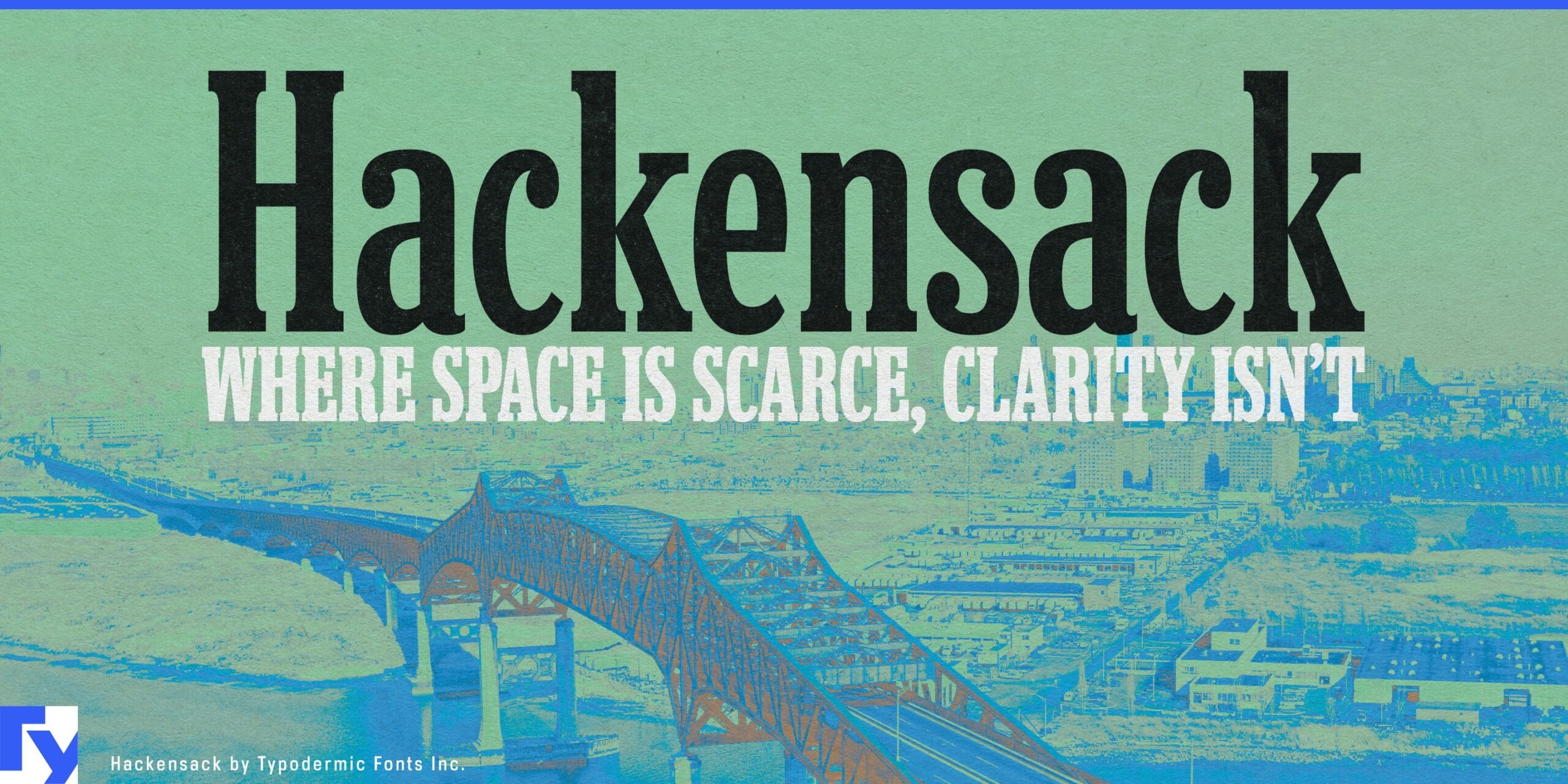
Hackensack – Elegant Serif Font
Hackensack – Elegant Serif Font is a clean and thoughtfully built typeface that works seamlessly for both professional branding and everyday creative uses. Hackensack is a compact slab serif that draws from Clarendon without inheriting its fuss. The proportions are tight and efficient; the slabs are firm and purposeful; details like ball terminals add a touch of warmth without tipping into nostalgia. It’s a straightforward, modern take on a familiar idea…clean where it counts, restrained where it matters.
Designed to perform in limited space, Hackensack stays clear and composed when every character has to earn its place. Features like the single-storey “g” keep the texture open and readable, avoiding the ornamental quirks that can slow things down. The result is a slab serif that feels contemporary in use, not historical in tone.
At small sizes, it holds together with quiet confidence; at larger scales, it carries weight without excess drama. It’s well suited to interfaces, editorial layouts, packaging, and wayfinding…anywhere space is tight but clarity can’t be compromised.
With extensive language support including Vietnamese, and Cyrillic, Hackensack is built to travel. Strong, compact, and dependable, it’s designed to make the most of every line.